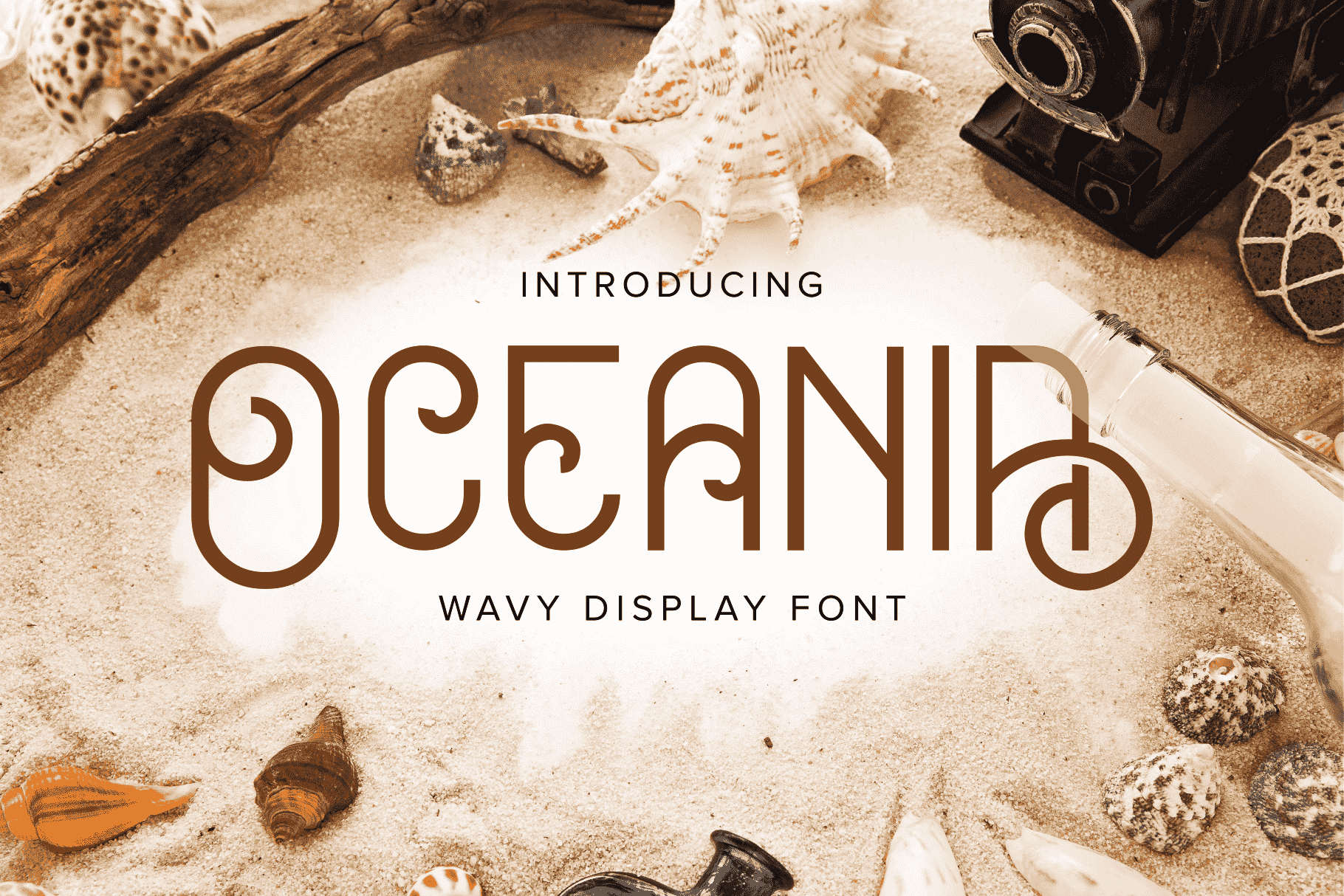
Oceania | Display Font
Oceania is unique display font with wavy dancing ocean wave. Bringing beach tropical freshness to your design. Suitable for your design need like headline, poster title, book cover, neon text, logo type, tshirt and so on